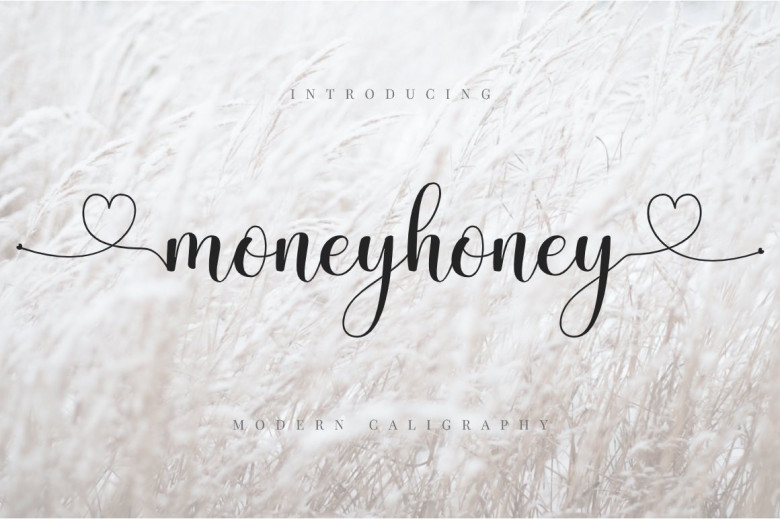
Moneyhoney Modern Calligraphy Script Font
Moneyhoney Font is perfect font pairing with tails alternates character. This font is a modern calligraphy hand lettering script. It’s allowing you to create beautiful hand-made typography in an instant.
Moneyhoney Font perfect to use for any kind of design such as branding projects, logo, brochures, business card, wedding designs, social media posts, advertisements, product packaging, product designs, label, photography, watermark, invitation, brand company, stationery and any projects that need handwriting taste.